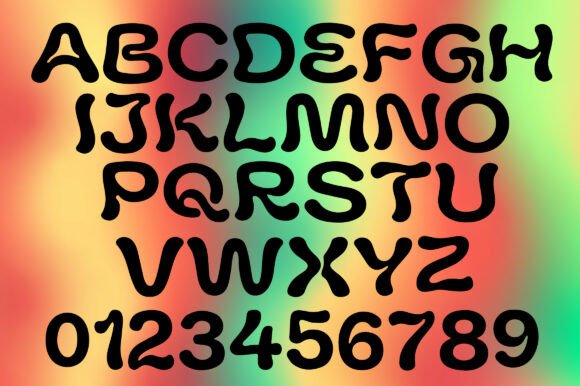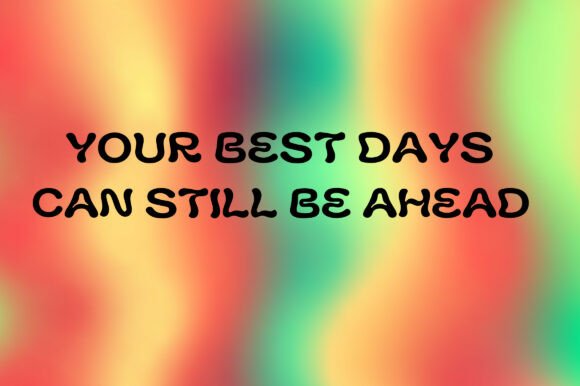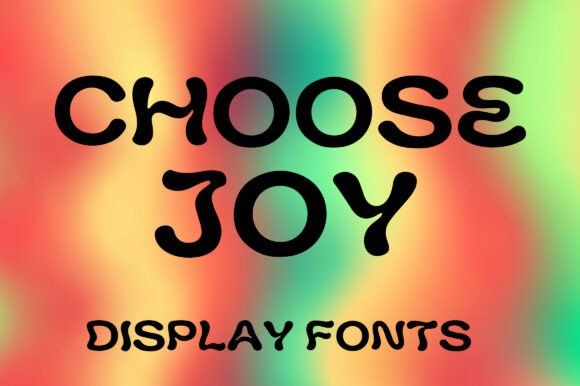
Introducing Choose Joy Font: Spread Positivity with a Vibrant Display Font
In the world of typography, fonts play a crucial role in conveying emotions and setting the tone for creative projects. If you’re looking for a font that exudes positivity, energy, and playfulness, look no further than Choose Joy Font. This stunning sans-serif typeface is designed to bring a rhythmic, energetic feel to your designs, making it perfect for motivational social media graphics, lifestyle branding, eye-catching event posters, and contemporary merchandise.
The Unique Characteristics of Choose Joy Font
Choose Joy Font is defined by its fluid, “liquified” curves and bold, high-contrast letterforms that dance across the baseline. Its unique silhouette features exaggerated bowls and tapering terminals, which evoke a retro, psychedelic aesthetic with a clean, modern finish. This distinctive design makes Choose Joy Font stand out from other fonts, adding a touch of lighthearted charm and unmistakable personality to every headline.
Key Features of Choose Joy Font
- Fluid Curves: Choose Joy Font features fluid, “liquified” curves that give it a dynamic, energetic feel.
- Bold, High-Contrast Letterforms: The font’s bold, high-contrast letterforms create a striking visual effect, making it perfect for headlines and titles.
- Retro, Psychedelic Aesthetic: The font’s unique silhouette, featuring exaggerated bowls and tapering terminals, evokes a retro, psychedelic aesthetic with a clean, modern finish.
- Clean and Modern: Despite its retro inspiration, Choose Joy Font has a clean and modern finish, making it suitable for a wide range of design applications.
Choose Joy Font is an excellent choice for designers and crafters looking to add a touch of positivity and personality to their creative projects. Whether you’re designing social media graphics, branding materials, event posters, or merchandise, this font is sure to make your designs stand out. Its unique blend of retro and modern elements makes it perfect for:
- Motivational Social Media Graphics: Use Choose Joy Font to create inspiring and engaging social media graphics that spread positivity and joy.
- Lifestyle Branding: Add a touch of personality to your lifestyle brand with Choose Joy Font, perfect for creating eye-catching logos, packaging, and marketing materials.
- Eye-Catching Event Posters: Create stunning event posters that grab attention with Choose Joy Font, perfect for concerts, festivals, and other events.
- Contemporary Merchandise: Use Choose Joy Font to create unique and stylish merchandise, such as t-shirts, stickers, and tote bags.
Tips for Using Choose Joy Font
To get the most out of Choose Joy Font, here are some tips for using it in your designs:
- Use it as a Headline Font: Choose Joy Font is perfect for headlines and titles, so use it to create striking and attention-grabbing text.
- Experiment with Colors: The font’s bold, high-contrast letterforms look great in a variety of colors, so don’t be afraid to experiment and find the perfect color scheme for your design.
- Pair it with Other Fonts: Choose Joy Font pairs well with other sans-serif fonts, so try pairing it with a clean and simple font for body text.
In conclusion, Choose Joy Font is a vibrant display font that’s perfect for designers and crafters looking to add a touch of positivity and personality to their creative projects. Its unique blend of retro and modern elements, fluid curves, and bold, high-contrast letterforms make it a standout font that’s sure to make your designs shine. So why not choose joy and add this amazing font to your collection today?